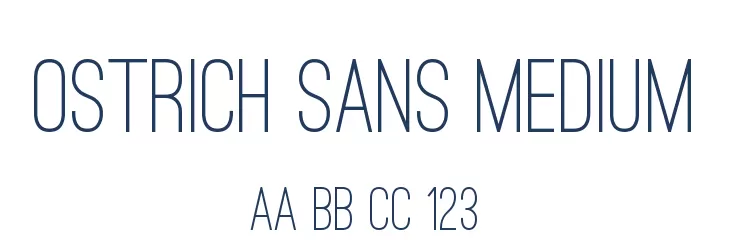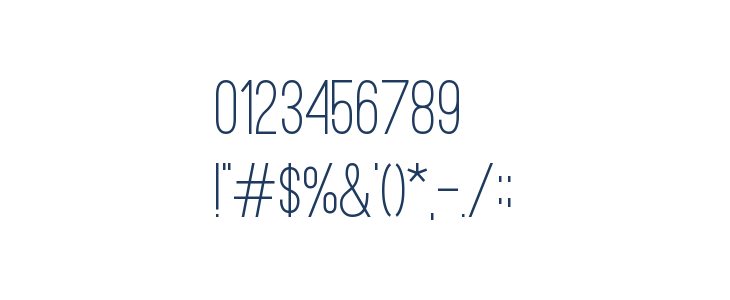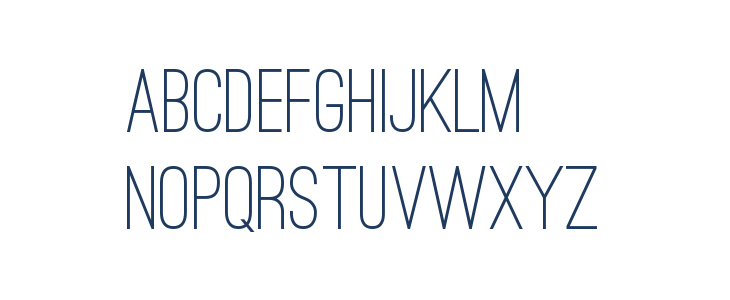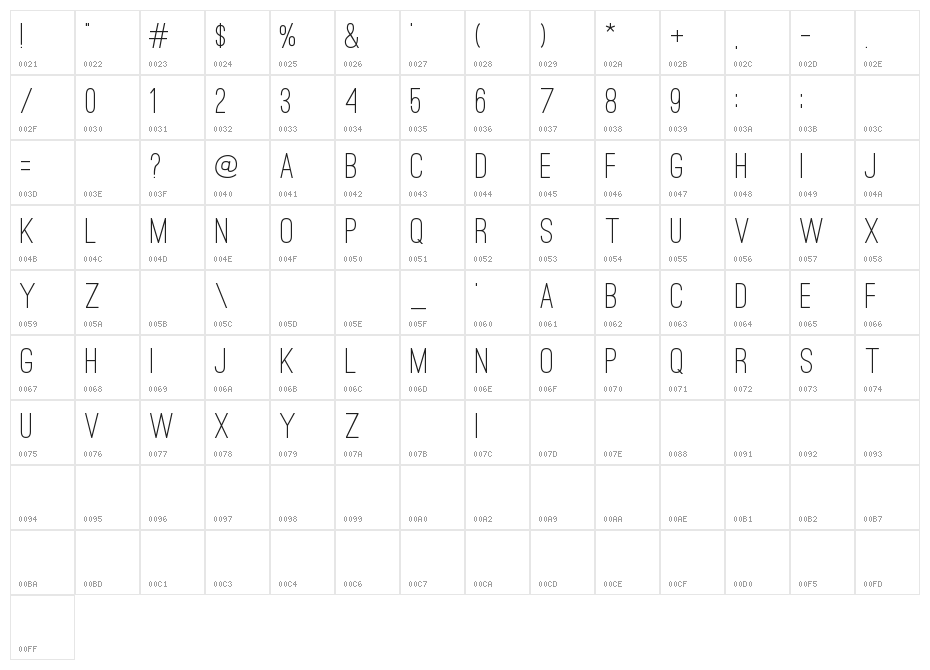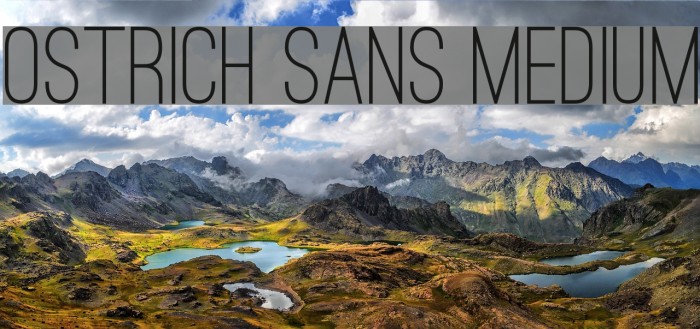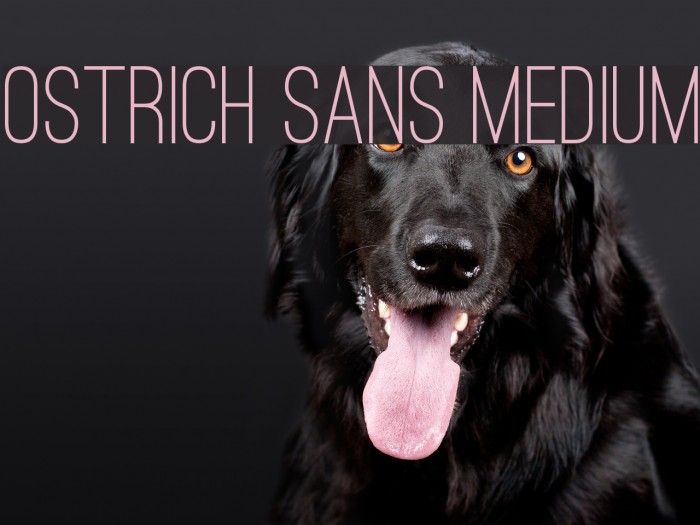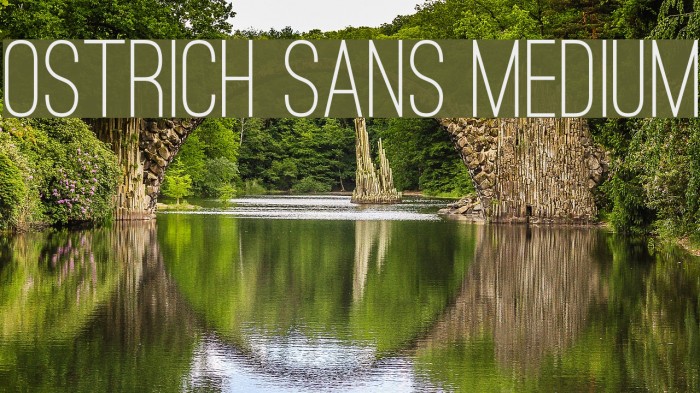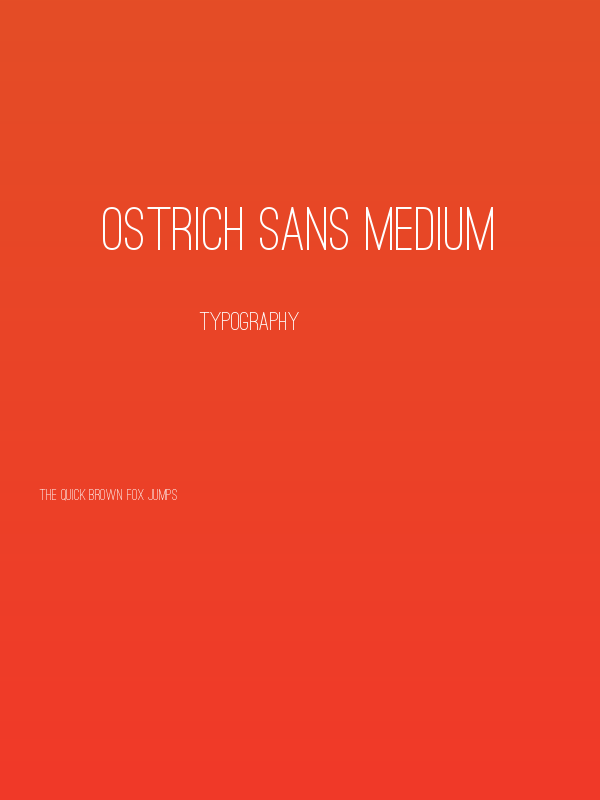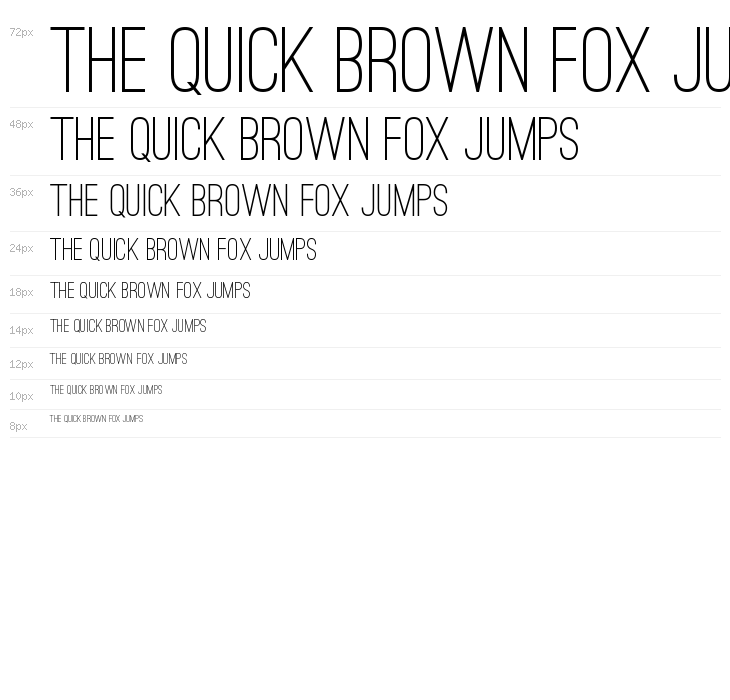
Ostrich Sans Medium Font
Ostrich Sans Medium Description
This font features a clean, modern sans-serif style with a distinct geometric structure. The characters are tall and narrow, giving it an elegant and sophisticated appearance. The uppercase letters are uniform in height, while the lowercase letters maintain a consistent baseline, enhancing readability. The numerals are proportionate and align well with the overall design. Special characters are clearly defined, maintaining the font's minimalist aesthetic. The thin strokes and lack of serifs contribute to a sleek and contemporary look, making it versatile for various design applications.
Proposed ProjectsIdeal for branding, editorial design, web design, and advertising where a modern and clean look is desired.